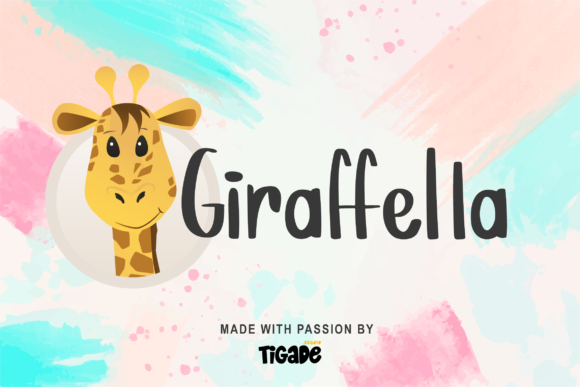
In a world saturated with standard and monotonous fonts, Giraffella Font emerges as a refreshing burst of creativity and whimsy, ready to transform your designs into captivating masterpieces. Picture your words dancing across the page, each letter a tiny work of art, infused with an irresistible charm that draws the eye and captivates the heart. Giraffella's playful and quirky nature adds an undeniable spark to any project, whether you're creating wall art, logos, branding, posters, or social media graphics.
Giraffella Font belongs to the esteemed display font family, renowned for its ability to command attention and make a lasting impression. Its unique style is meticulously crafted to evoke joy, happiness, and a touch of nostalgia, making it the perfect choice for designers seeking to create truly remarkable and memorable designs. Experience the magic as your words come alive, imbued with Giraffella's infectious personality. Prepare to witness the transformation of your creative endeavors into captivating expressions of art and inspiration.
With Giraffella Font by your side, you gain access to a boundless realm of creative possibilities. Create stunning wall art that transports viewers to enchanting realms, where imagination reigns supreme. Design logos that radiate playfulness and warmth, inviting customers to embark on an unforgettable journey with your brand. Craft social media graphics that pop off the screen, capturing the attention of your audience and leaving them eager for more. The sky's the limit when you unleash the power of Giraffella Font.